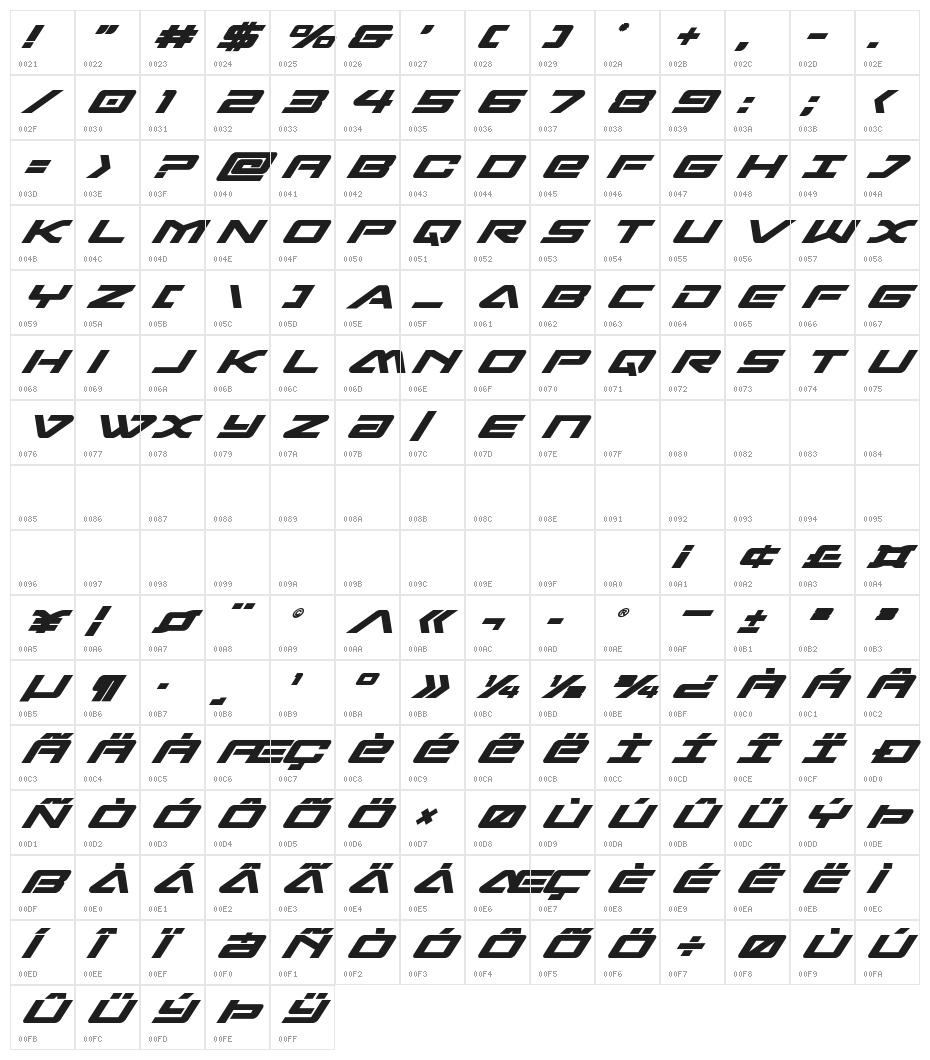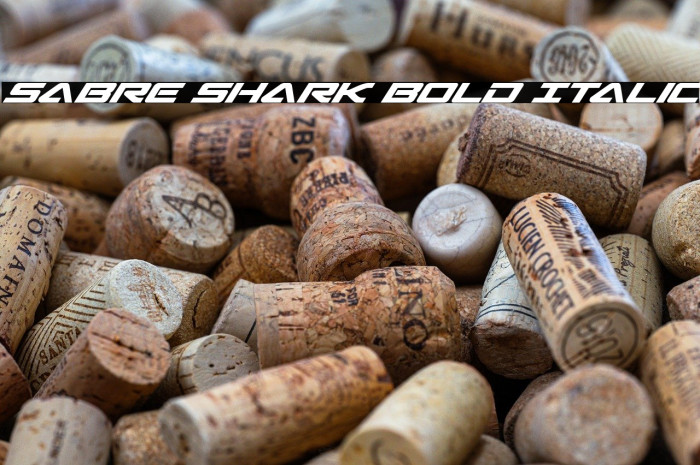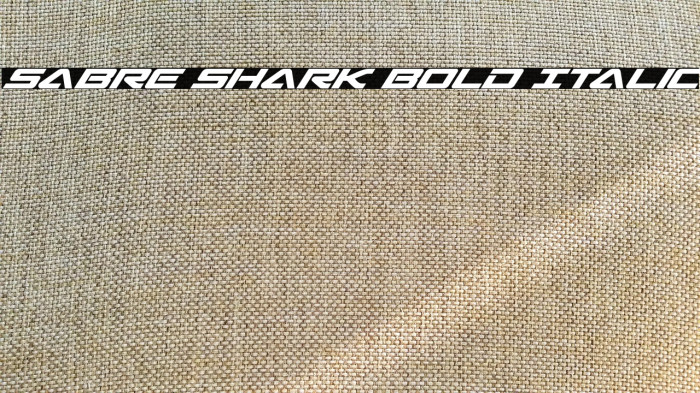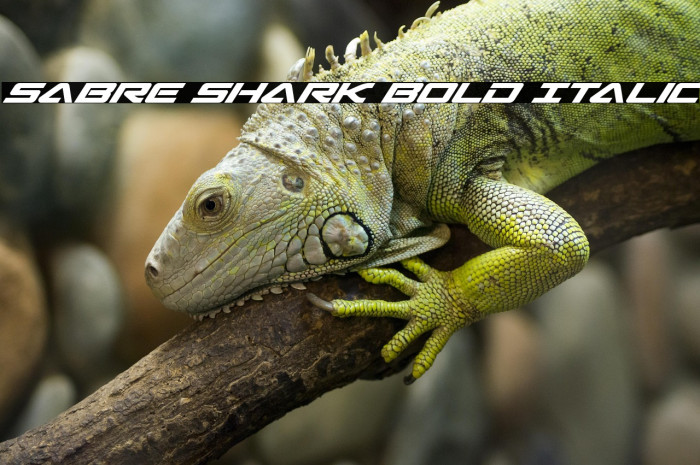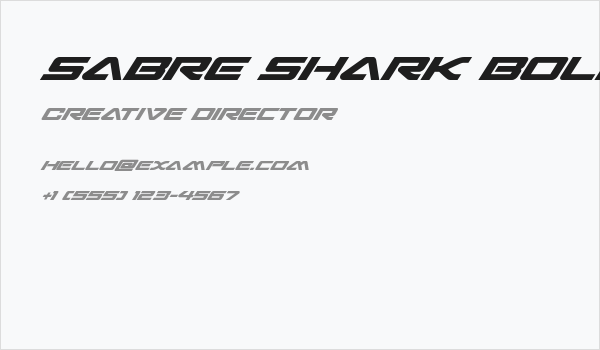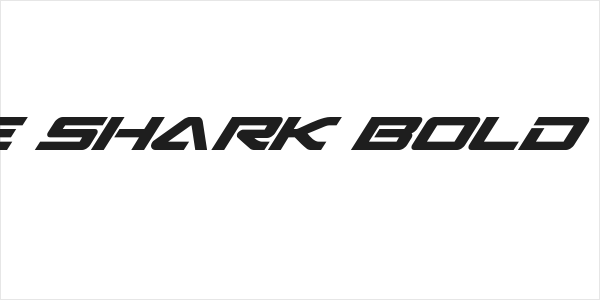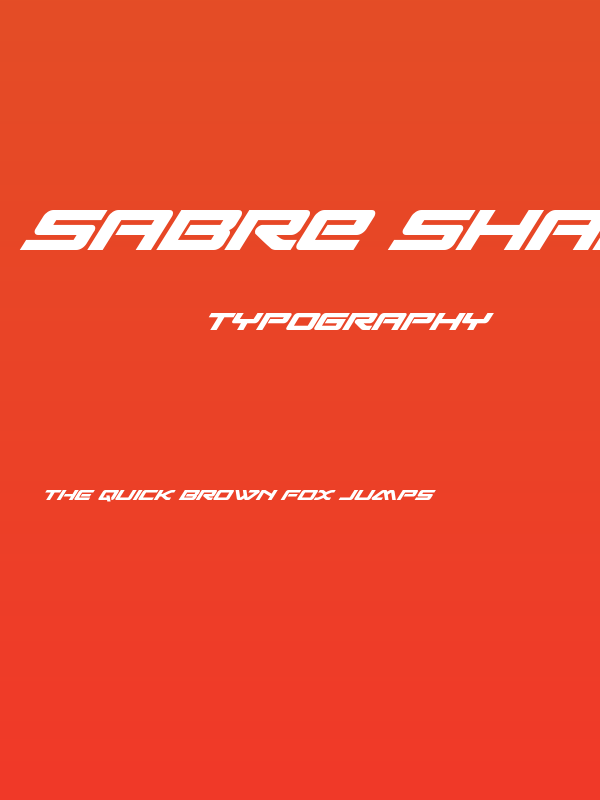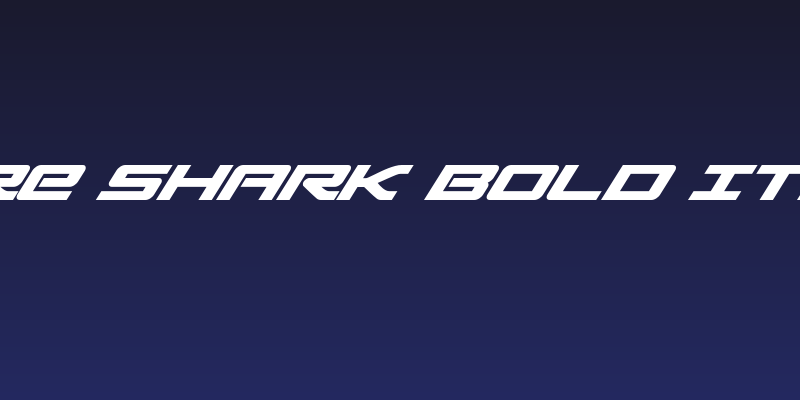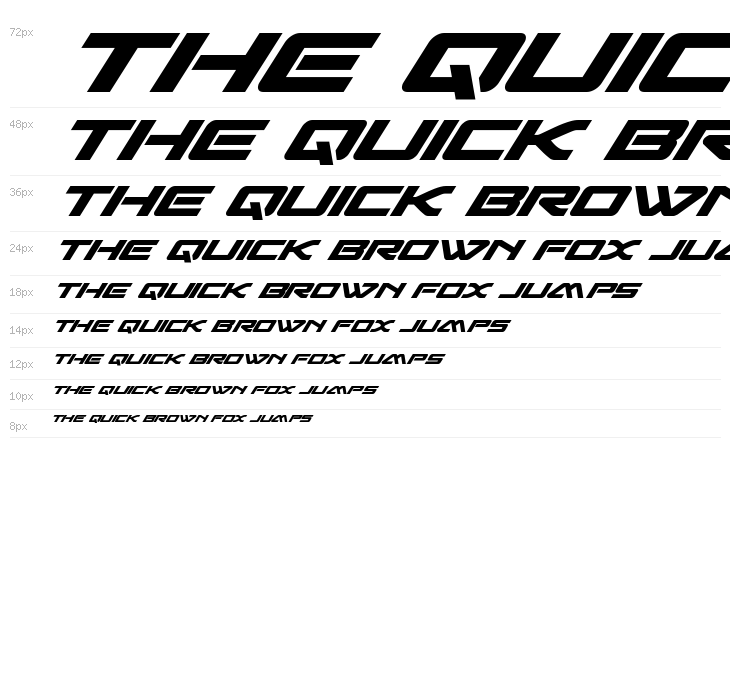
Sabre Shark Bold Italic Font
Sabre Shark Bold Italic Description
This font exhibits a bold and italicized style with a futuristic and dynamic appearance. The characters are angular and slanted, giving a sense of motion and speed. The strokes are thick and consistent, providing a strong visual impact. The design features sharp edges and geometric forms, making it suitable for modern and tech-oriented themes. The numbers and special characters maintain the same bold and angular style, ensuring uniformity across all glyphs.
| Use Case | Logos, Headlines |
| Proposed Projects | Ideal for technology branding, sports team logos, video game titles, and sci-fi themed posters. |